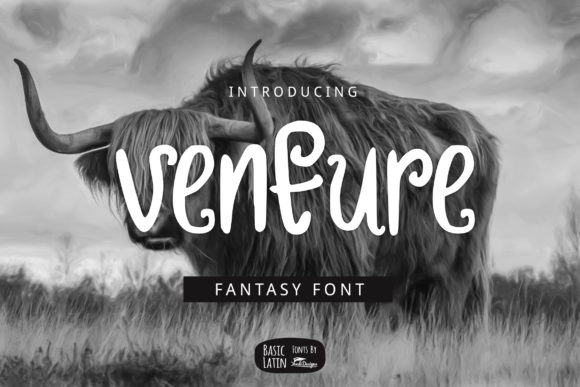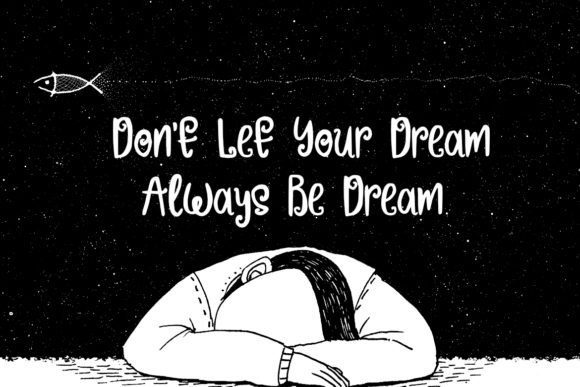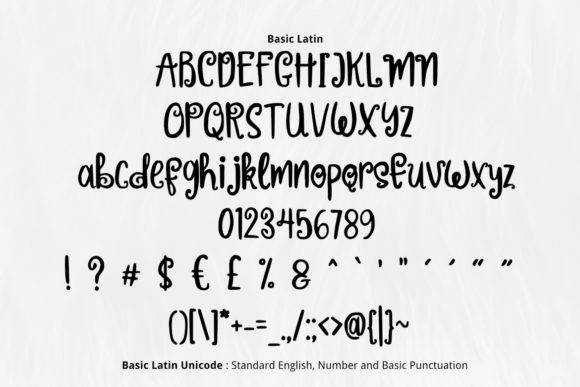
About Venture Font
Venture is a simple, fun and fresh sans serif font. It’s easy to apply to a variety of products such as logos, product brands because this font is very universal and has unique characteristics!